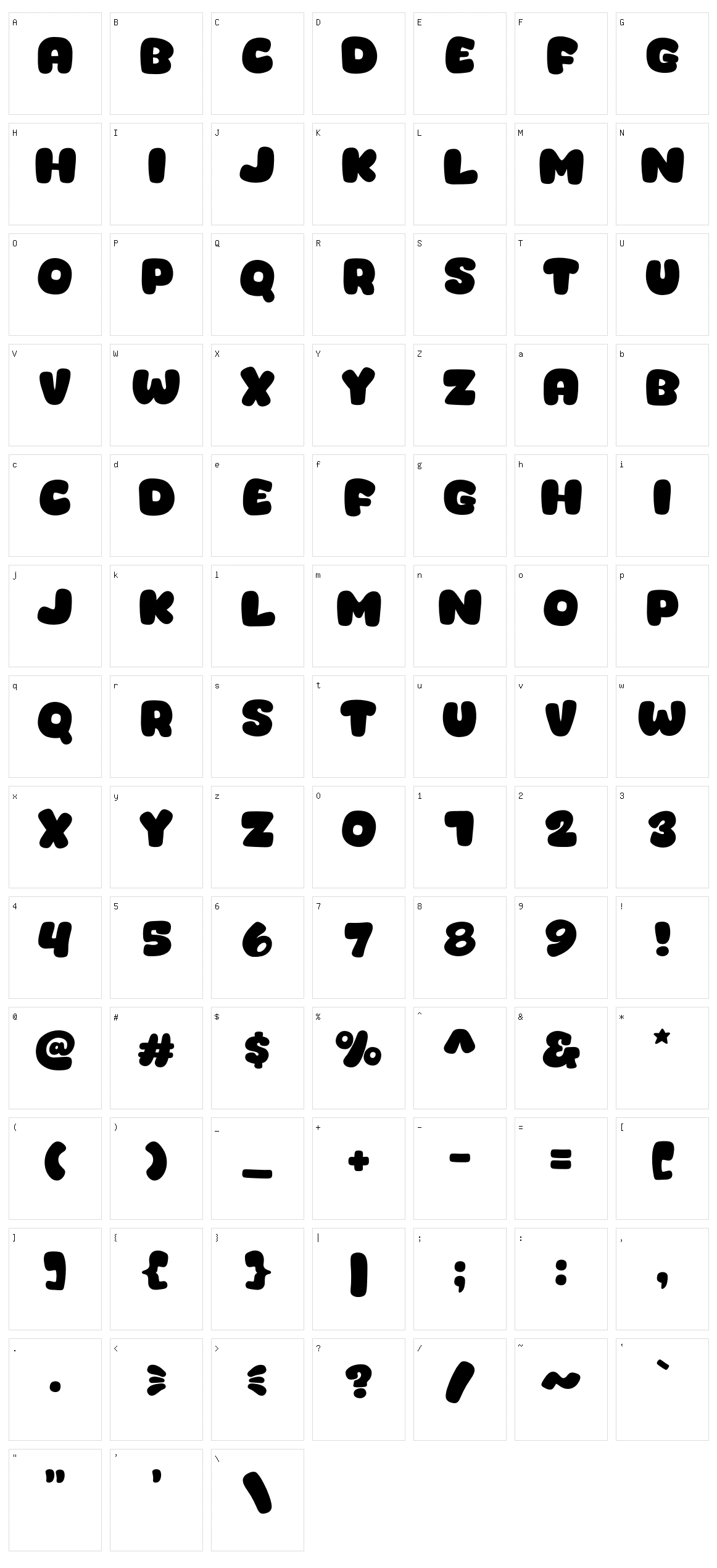
The free font Catcut is carefully designed by Khurasan, showcasing a thoughtful balance of creativity and usability and falls under the Cartoon font style. When you download the ZIP file, it contains only 371.47 KB of font files, making it lightweight and quick to download. Please review the license details below to understand permitted usage and distribution rights. If license information is not available, we recommend using this font for personal projects only or contacting the author directly for commercial usage permissions.